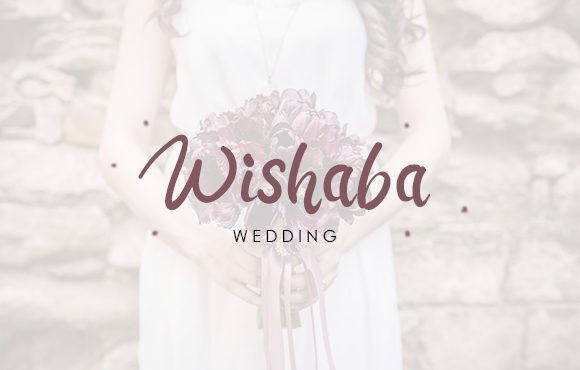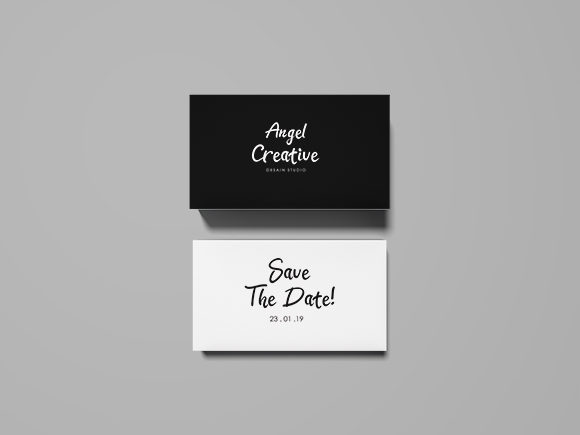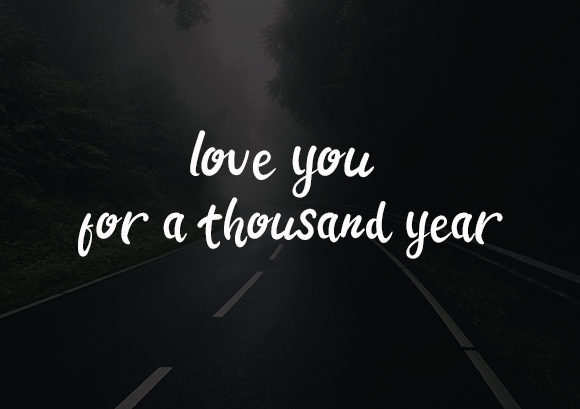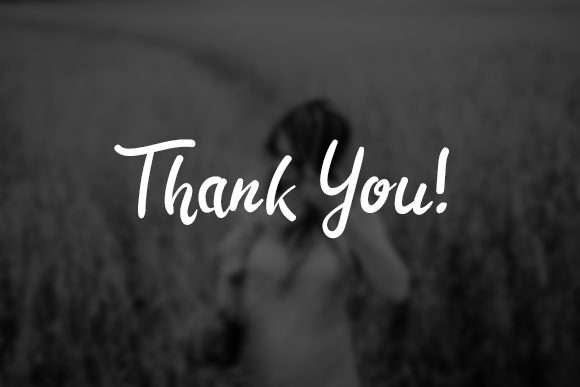
About The Jeliman Font
The Jeliman is a lovely modern calligraphy font. It’s combining the classic style of calligraphy with a more modern style.
It can be used for various purposes such as logos, wedding invitations, t-shirts, letterheads, signage’s, labels, and much more!